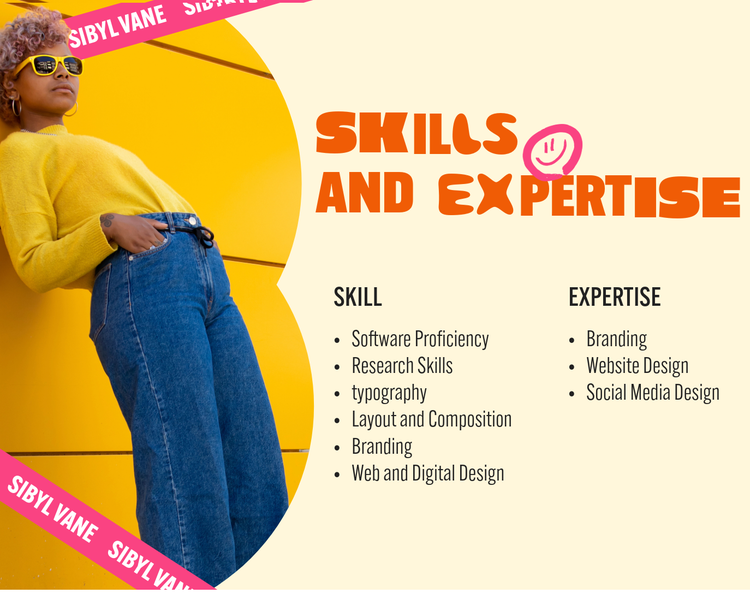
Typography plays a key role in how presentations look and feel. The right fonts can help reinforce your message, improve readability, and create a more engaging visual experience. Explore font pairings, presentation styles, and design inspiration with Adobe Express to make your slides more impactful and memorable.
Cool presentation fonts to elevate your slides.
The right typography can make your presentation slides more engaging, professional, and easy to read. With Adobe Express, you can explore and customise fonts that enhance your message and captivate your audience.
Importance of font selection for presentations.
Font choice plays a crucial role in how information is perceived during a presentation. The right font enhances readability, ensures professionalism, and sets the tone for your message.
A well-chosen font helps to:
Improve clarity:
Easy-to-read fonts prevent distractions and ensure key points stand out.
Maintain consistency:
A cohesive typography style enhances branding and professionalism.
Guide audience focus:
Effective font pairings create a clear visual hierarchy.
Create an emotional connection:
Fonts can evoke feelings of trust, excitement, or creativity.
Popular font styles for presentations.
Different fonts create different impressions. Here are some common font styles and their best uses:
How to match fonts with your presentation theme.
Selecting the right font combination enhances the overall flow and impact of your slides. Follow these tips to ensure consistency:
Align fonts with your topic:
A finance presentation may require structured serif fonts, while a creative pitch could use dynamic script fonts.
Use a maximum of two fonts:
Pairing one header font with a simple body font ensures readability.
Create contrast for emphasis:
Use bold or italicised versions to highlight key points.
Test readability at different sizes:
Ensure your fonts remain clear from a distance.
Stick to brand colours:
If your company has a brand kit, maintain consistent typography and colours.
Examples of engaging presentation fonts.
The best fonts for presentations combine readability with visual appeal. Here are some recommended font pairings: